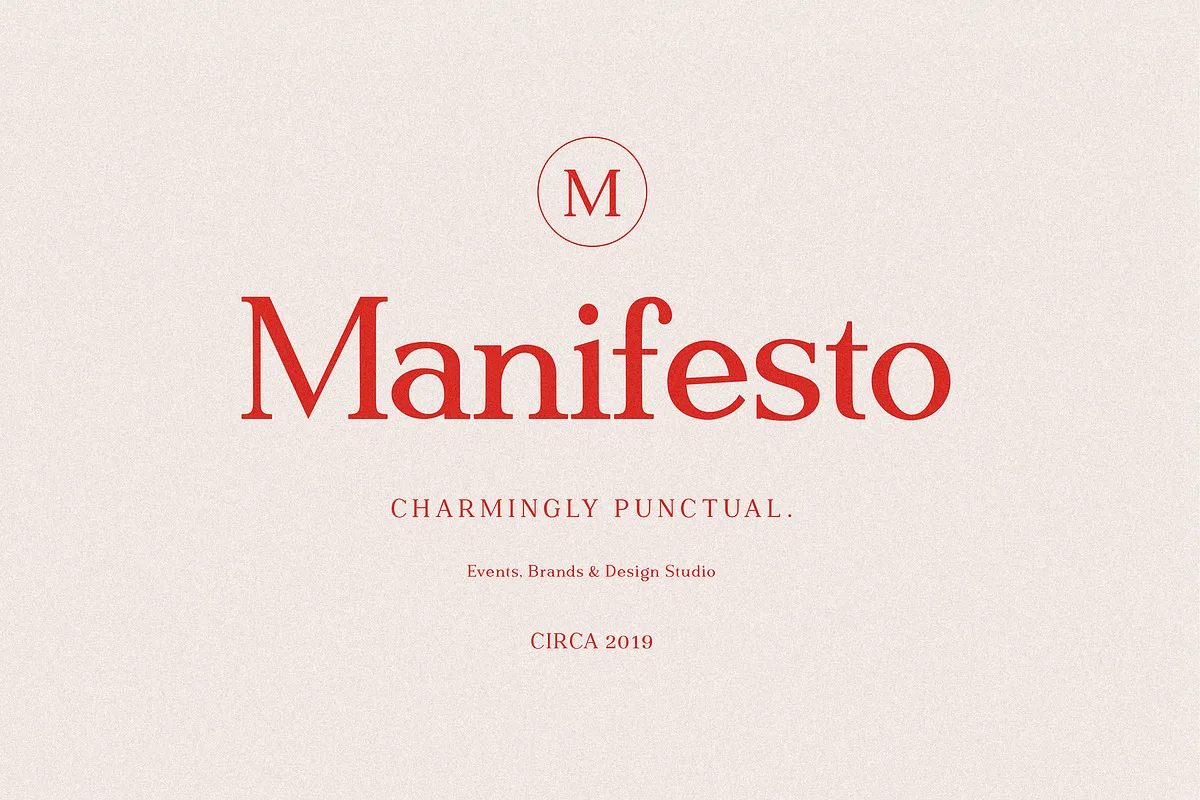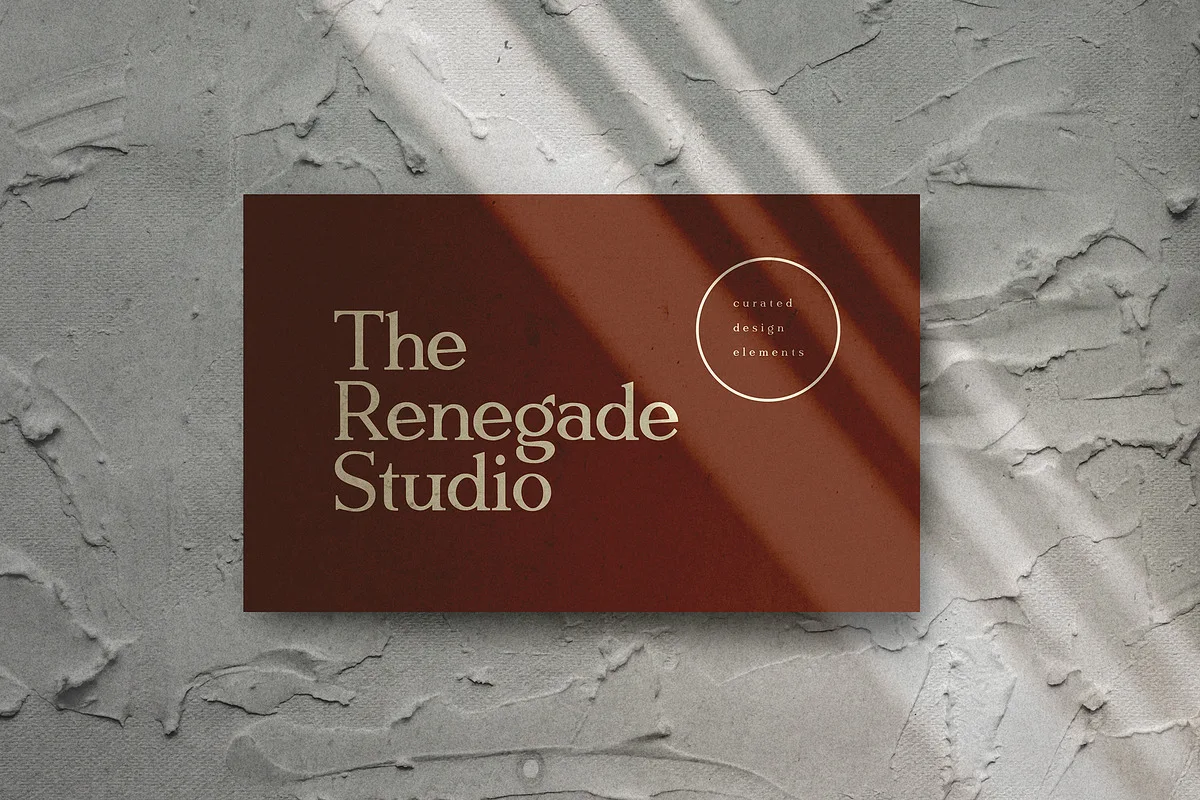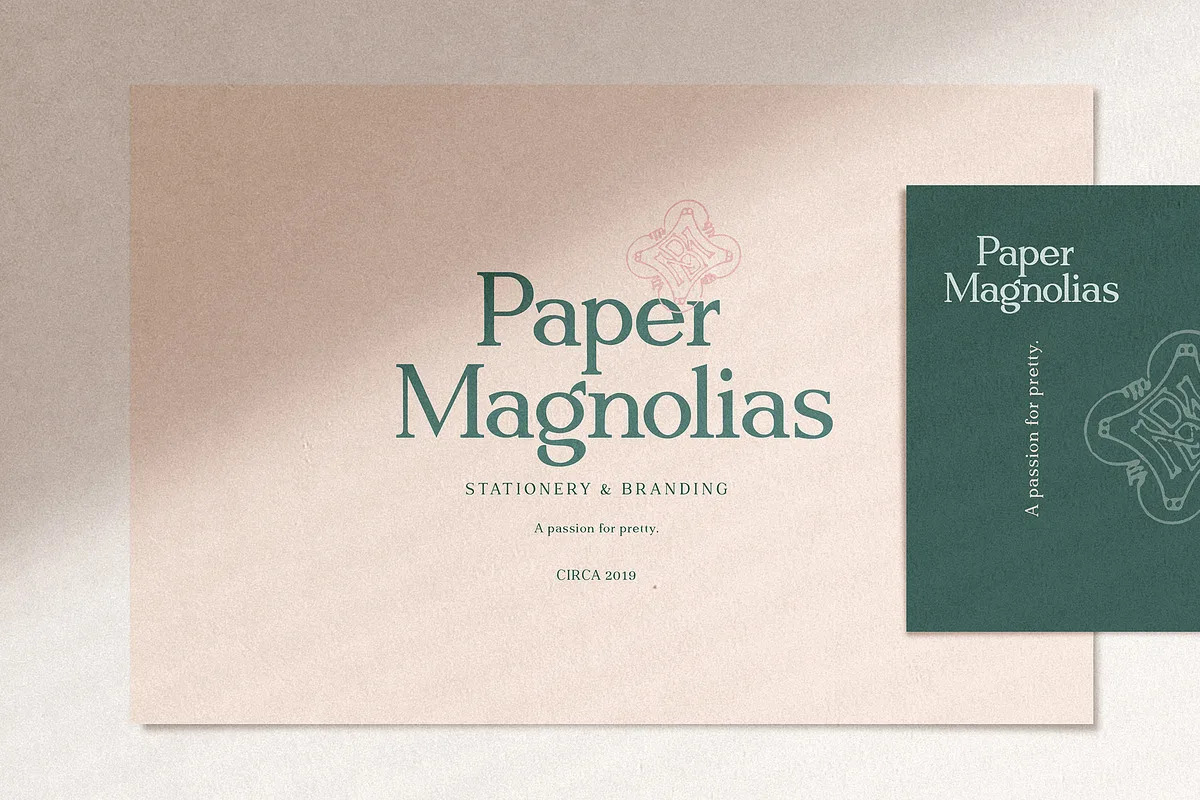
Gatsby takes its cues from the “Roaring Twenties”, an era when breaking from the norm was the order of the day, when femininity took on a charming ‘boyishness’, and a time when anyone who’s anyone, needed to be bold and ever so slightly, or even not so slightly, eccentric.
Perfect at any size – Gatsby Modern does well from large eye-catching headlines to large paragraphs of small text. Great for modern branding, posters, logos, social media projects, headers, advertising and so much more. It is available in two weights, regular and a heavier set bold to suit your project needs.